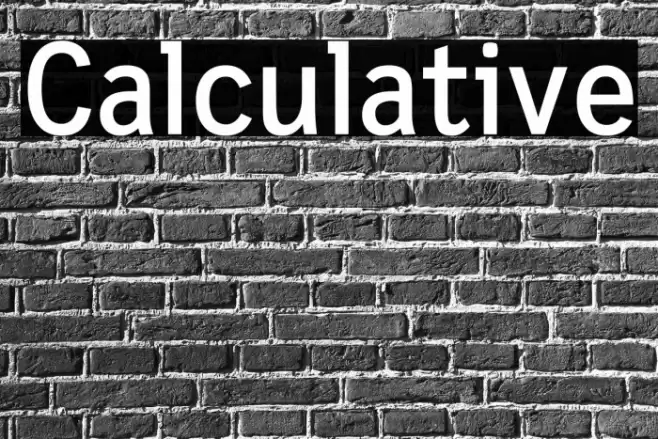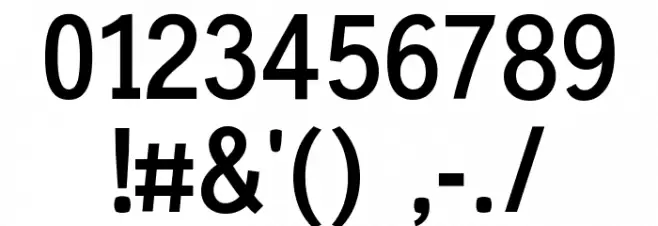
Calculative Font
Calculative Description
This font features a clean and modern sans-serif design, characterized by its straightforward and geometric letterforms. The strokes are uniform in thickness, providing a balanced and harmonious appearance. The uppercase letters are bold and assertive, while the lowercase letters maintain a consistent and approachable look. The numerals are clear and easy to read, making them suitable for various applications. The special characters are well-integrated, ensuring versatility in usage. Overall, this font exudes a professional and contemporary vibe, making it ideal for digital and print media.
A modern, geometric sans-serif font with uniform stroke thickness from Uncategorized fonts.